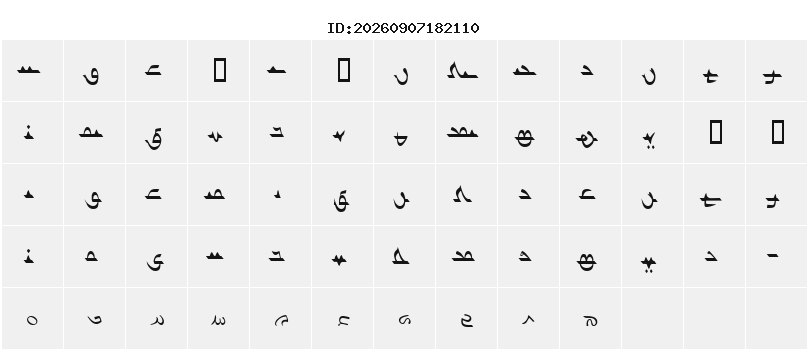
• Font Name: Ulanbatar
About Ulanbatar.ttf
Ulanbatar.ttf is a modern, elegant sans-serif font designed for ultimate readability and visual harmony. Perfect for branding, headlines, web design, and print materials.